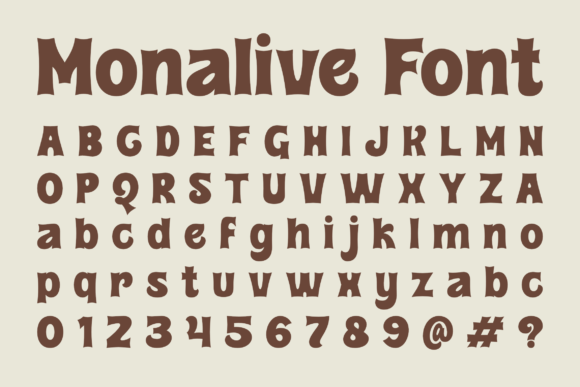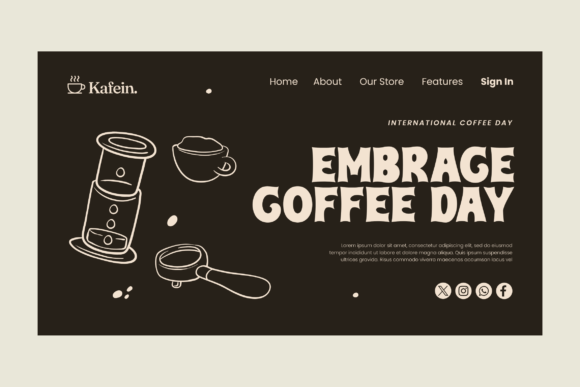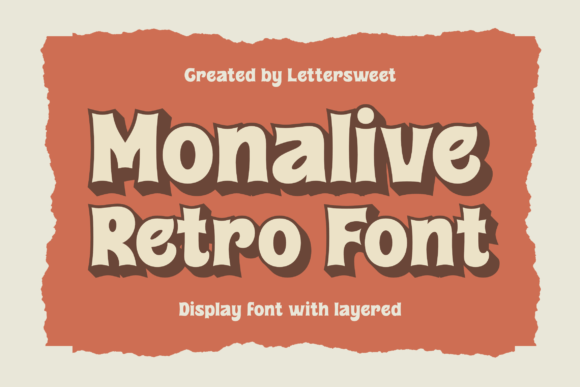
Monalive Font
Designer: Lettersweet
Monalive Font: a fun, retro display font that bursts with vibrant energy and nostalgia. Its bold, playful letterforms and vintage charm make it perfect for eye-catching posters, throwback branding, and lively packaging designs. Bring a touch of retro fun to your projects with Monalive!